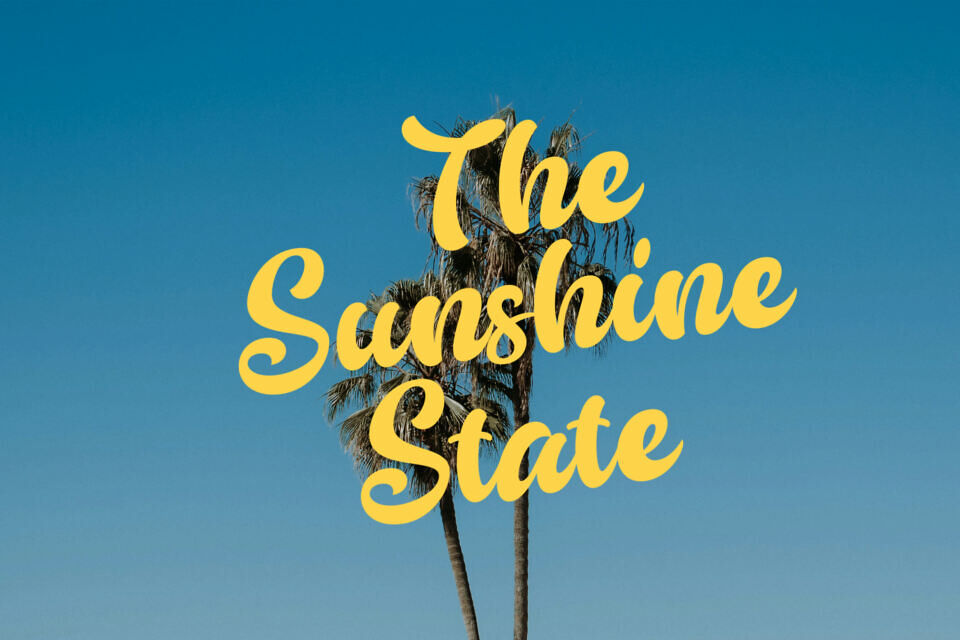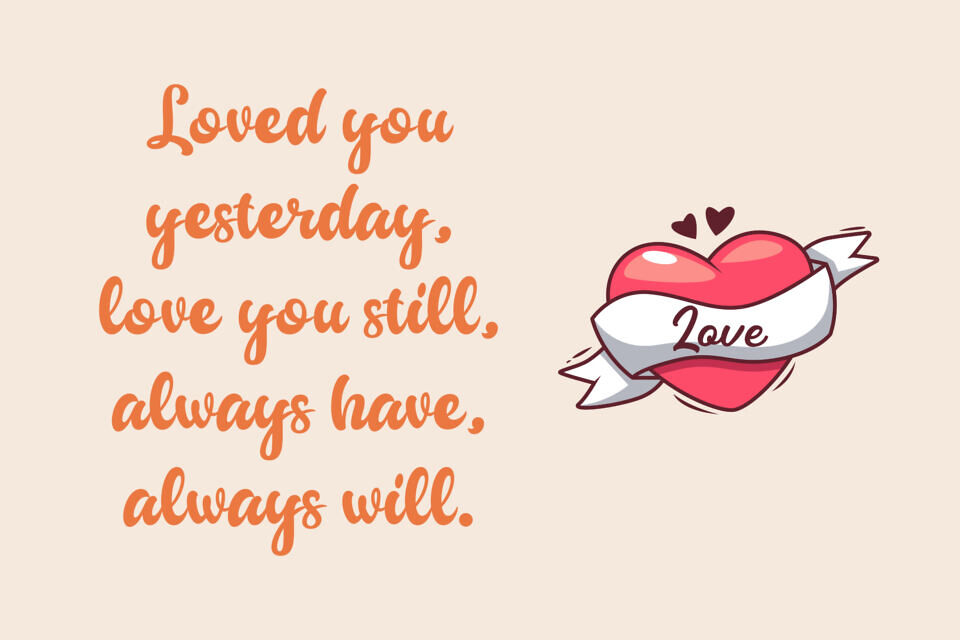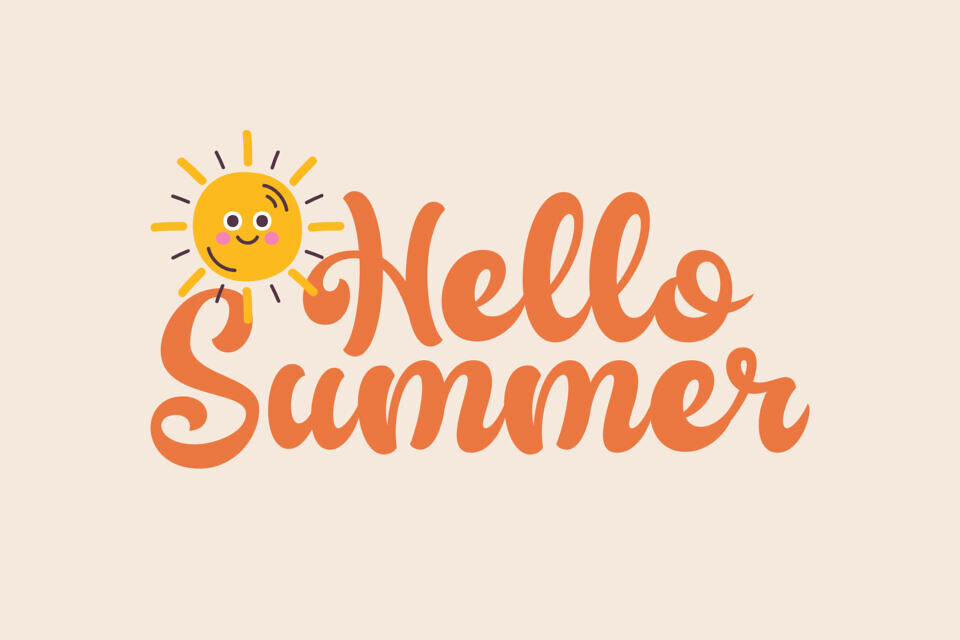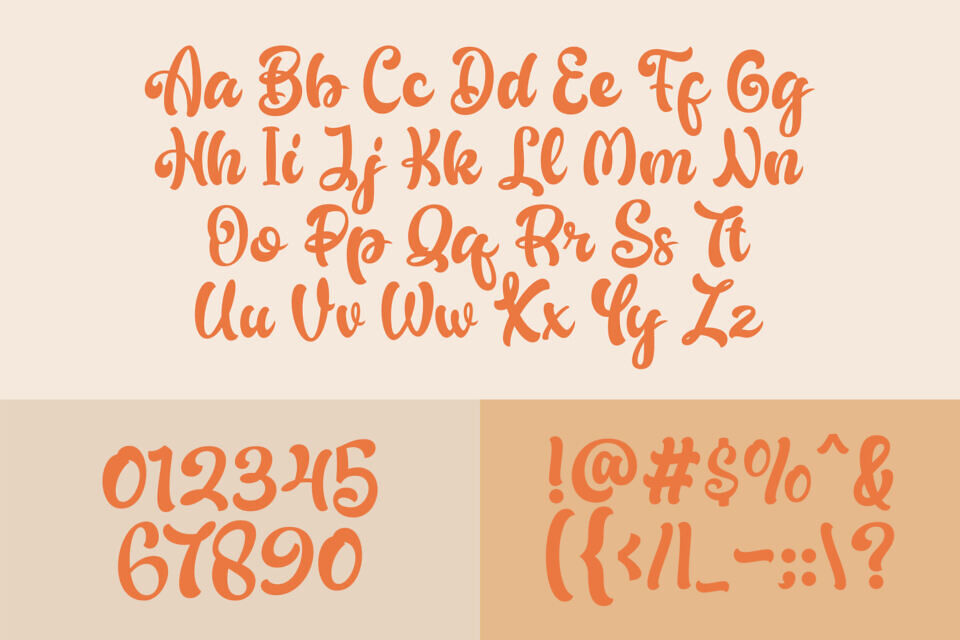
Say hello to Bandusi, a playful summer script font that brings sunshine to your designs! With its cheerful hand-lettered style and smooth, bouncy strokes, Bandusi is perfect for fun and vibrant projects like t-shirt designs, kids’ branding, party invitations, product packaging, and more.
Inspired by sunny days and tropical vibes, Bandusi adds warmth and joy to every word. Its flowing curves and friendly personality make it a great choice for designers, illustrators, or creative entrepreneurs looking to add a happy, handmade touch to their work.